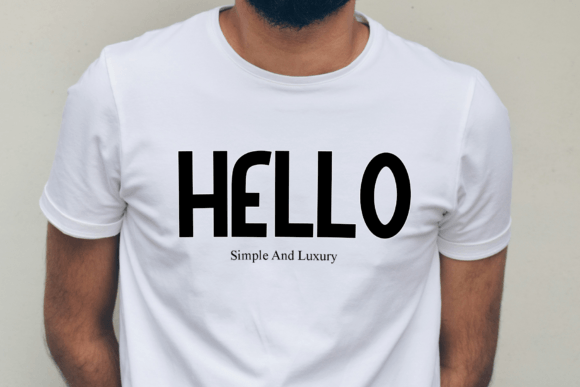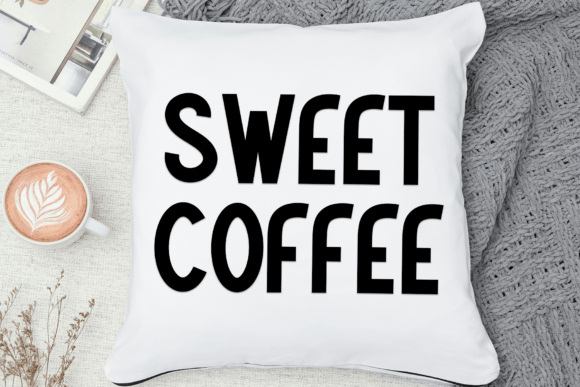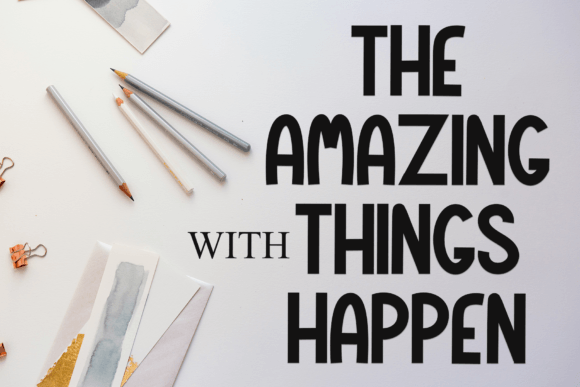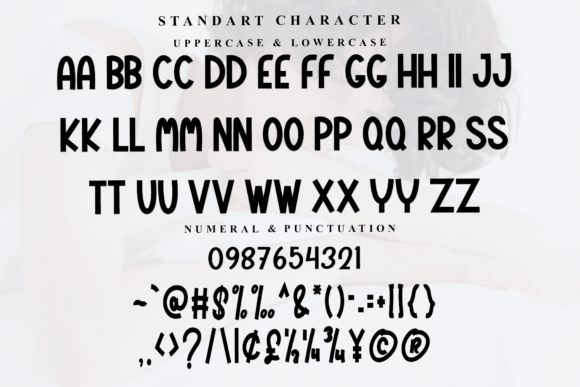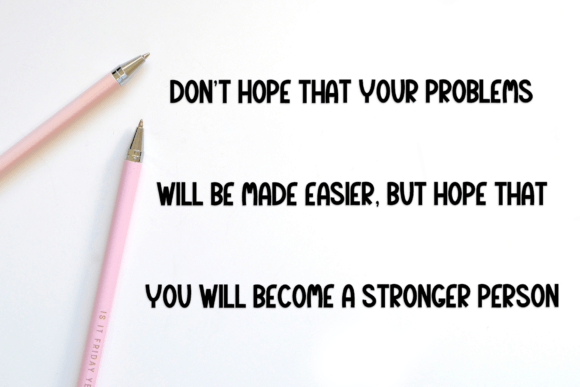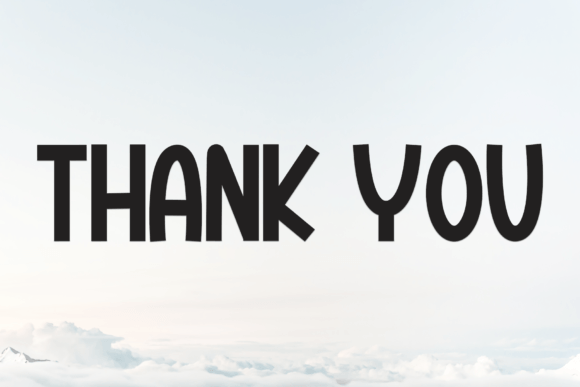
Introduction to Notes Kamala Font
Notes Kamala is a lovely and timeless sans serif font.
Key Features of Notes Kamala Font
Why Choose Notes Kamala Font?